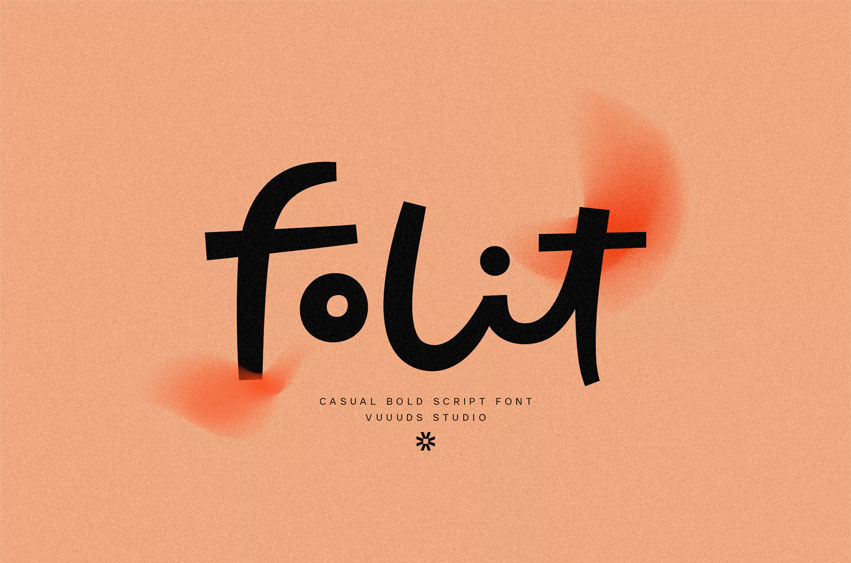
Folit Font is a handwritten, marker-style font with rough strokes that bring a handmade and expressive energy. Ideal for posters, album covers, and bold, dynamic design projects.
Ideal for branding, posters, headlines, packaging, album art, game visuals, and promotional designs. It adds personality to any creative project and helps your message stand out effortlessly.